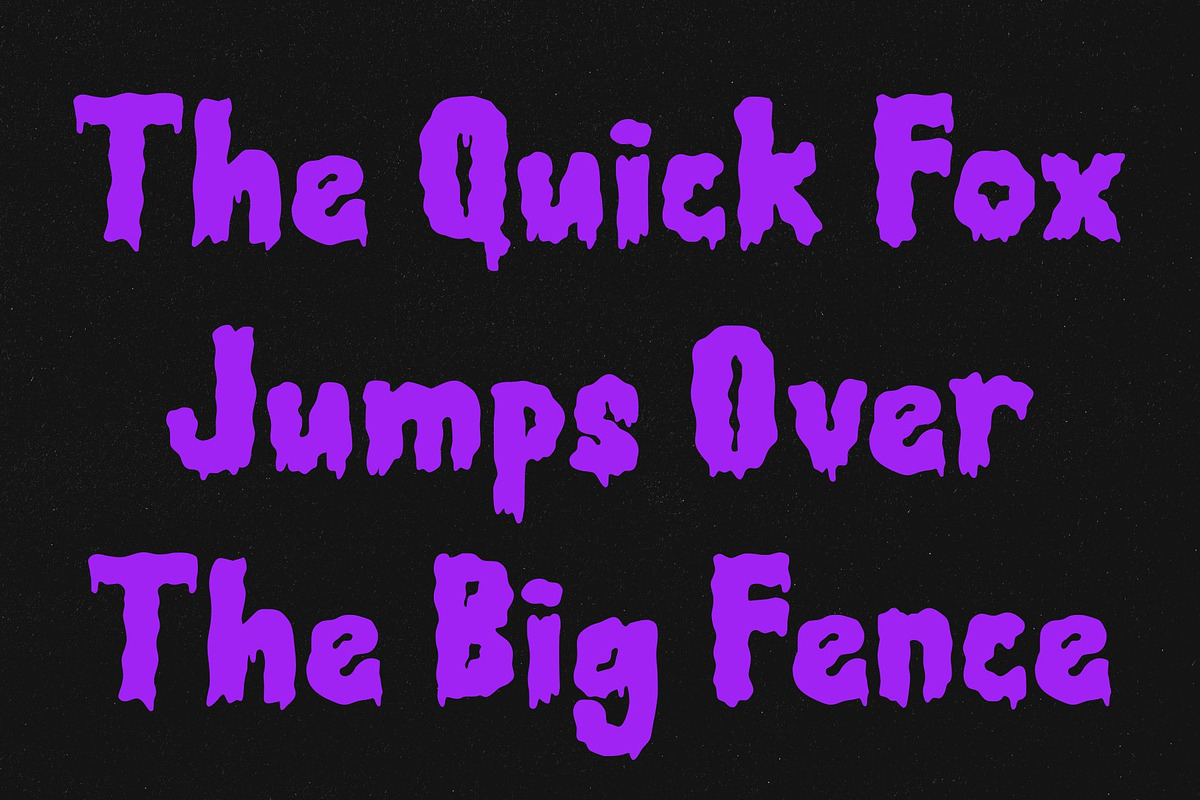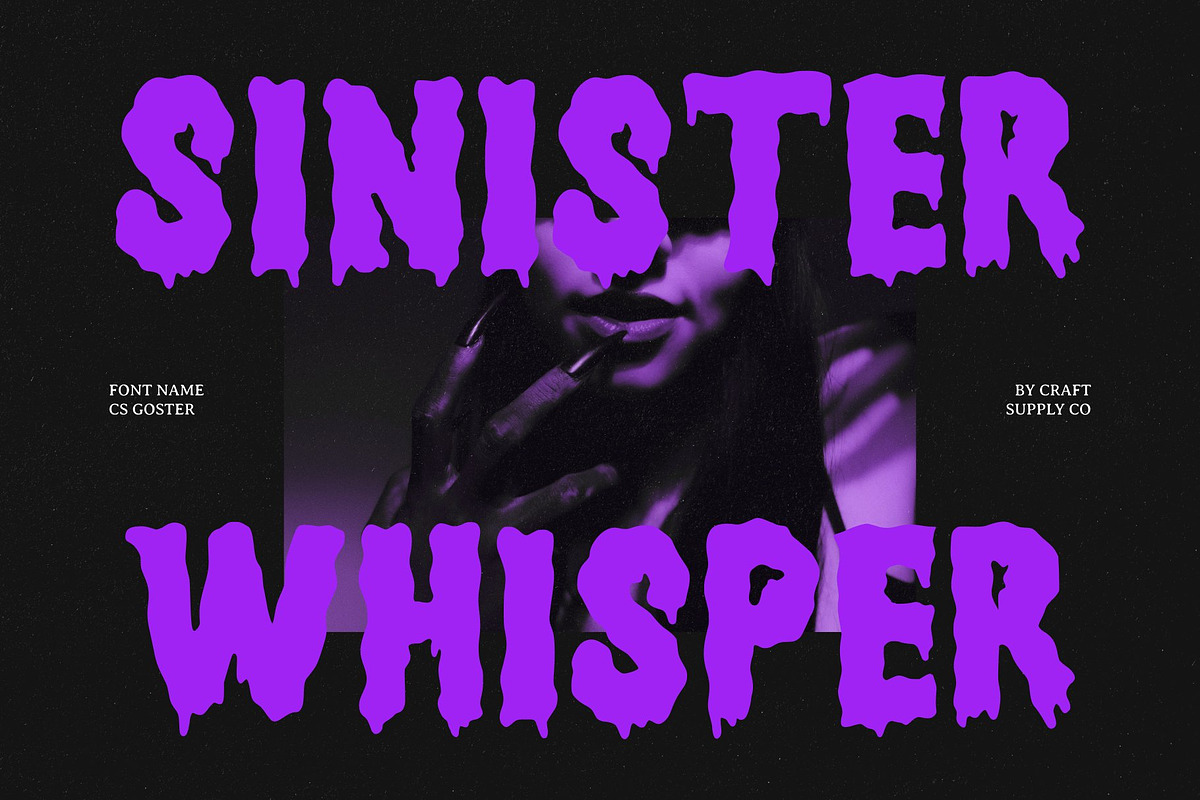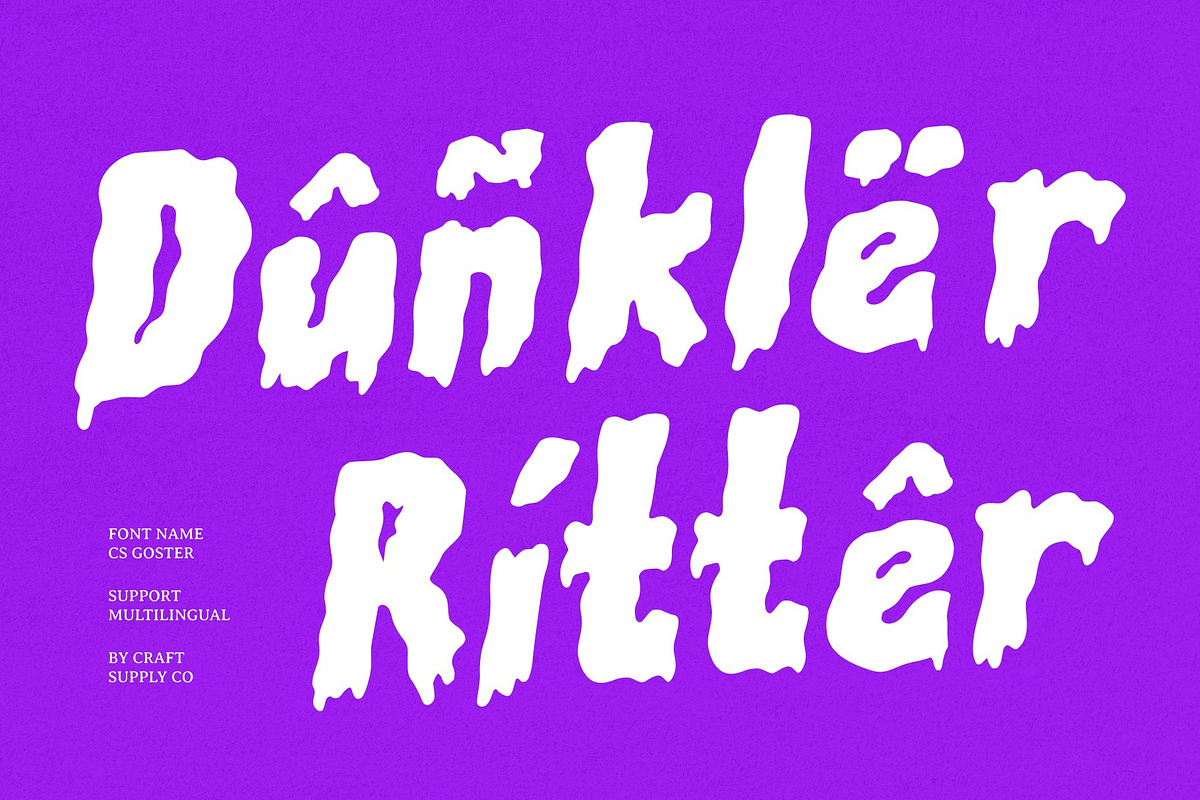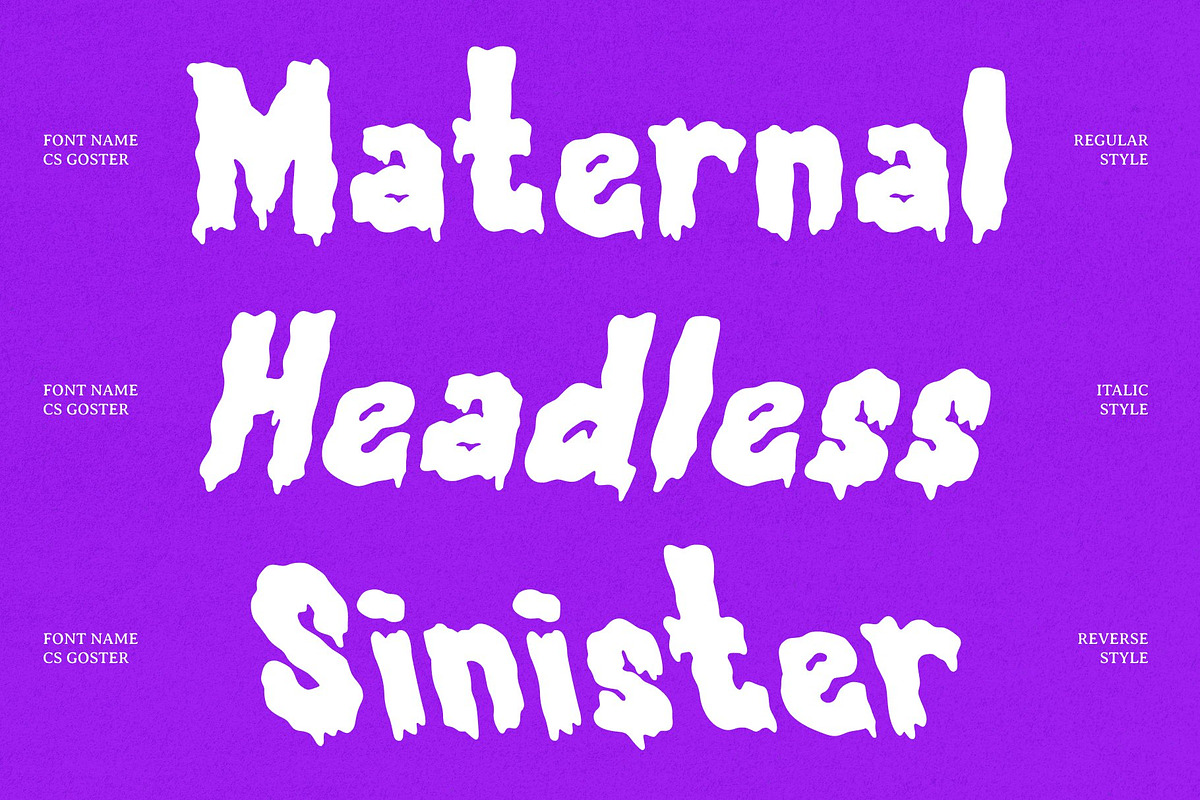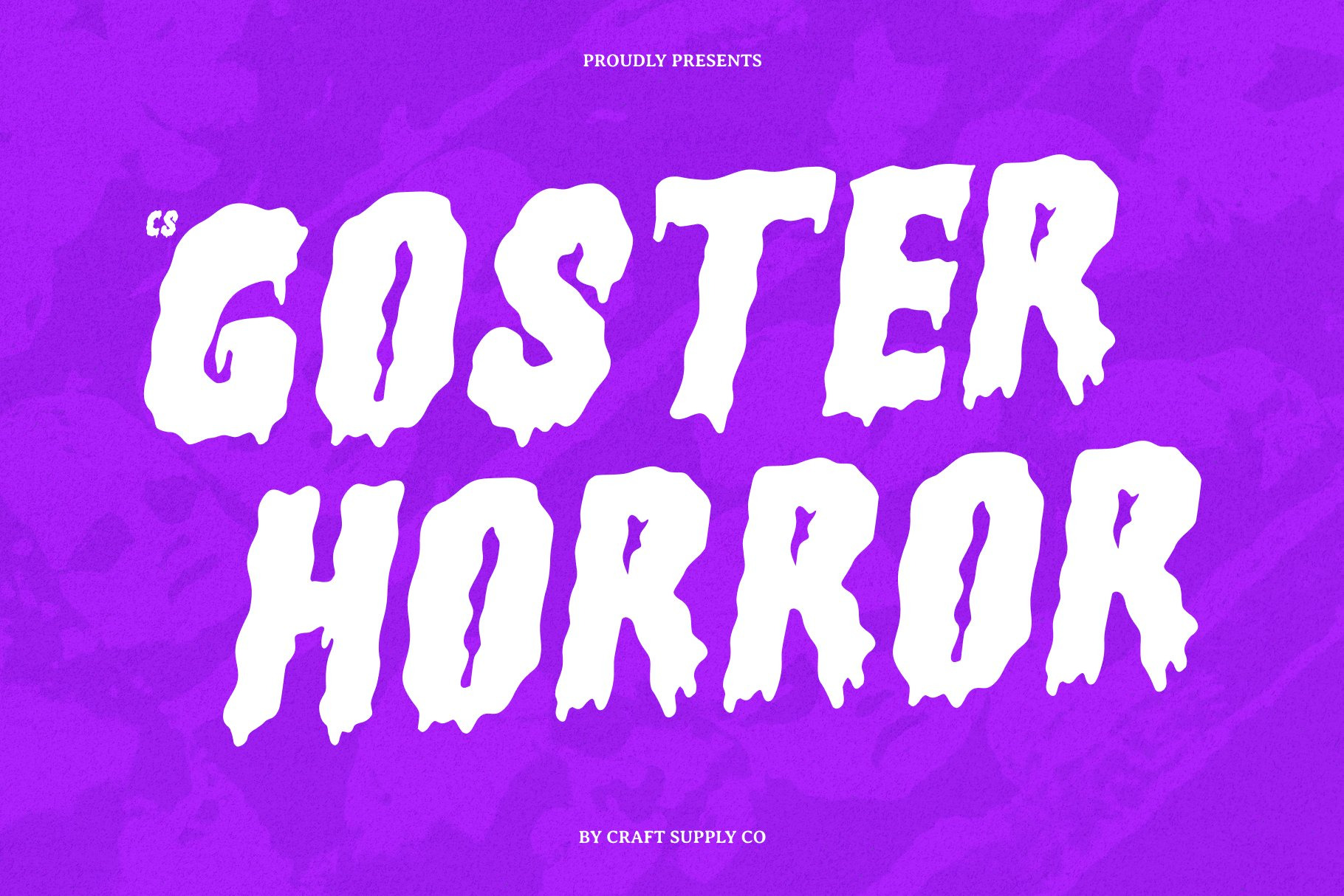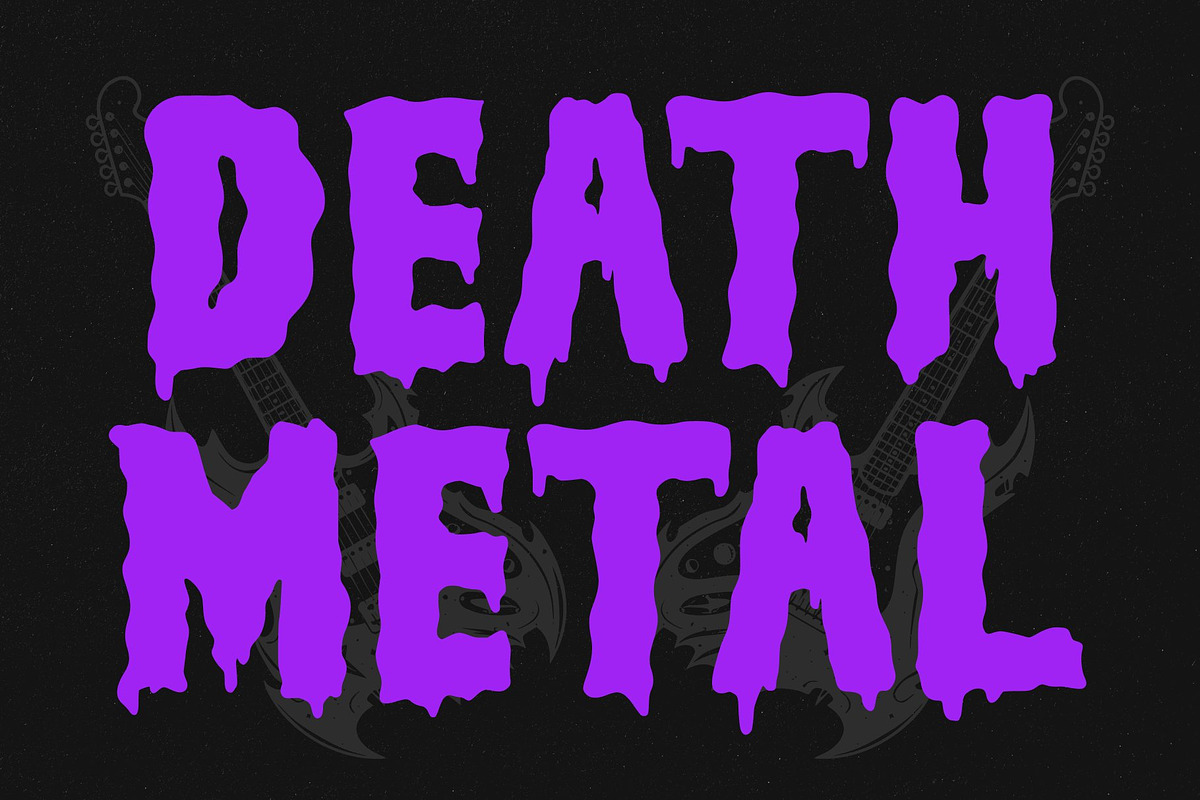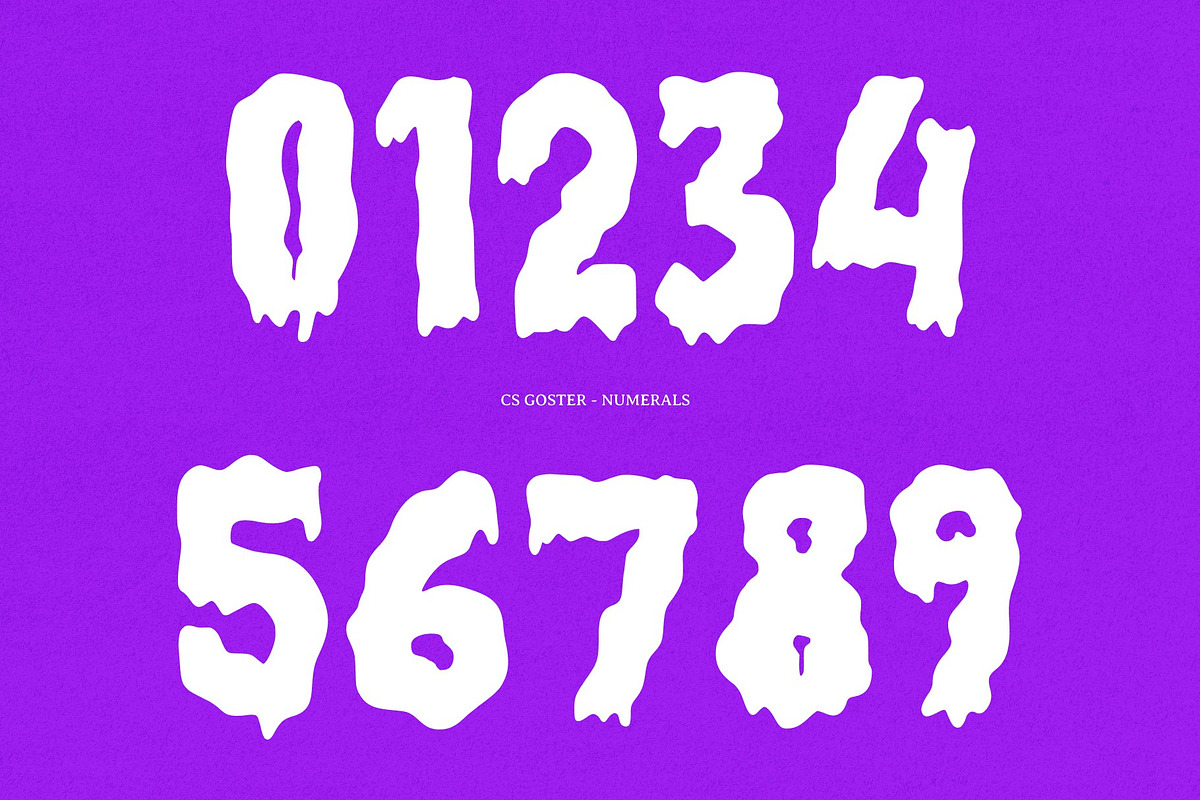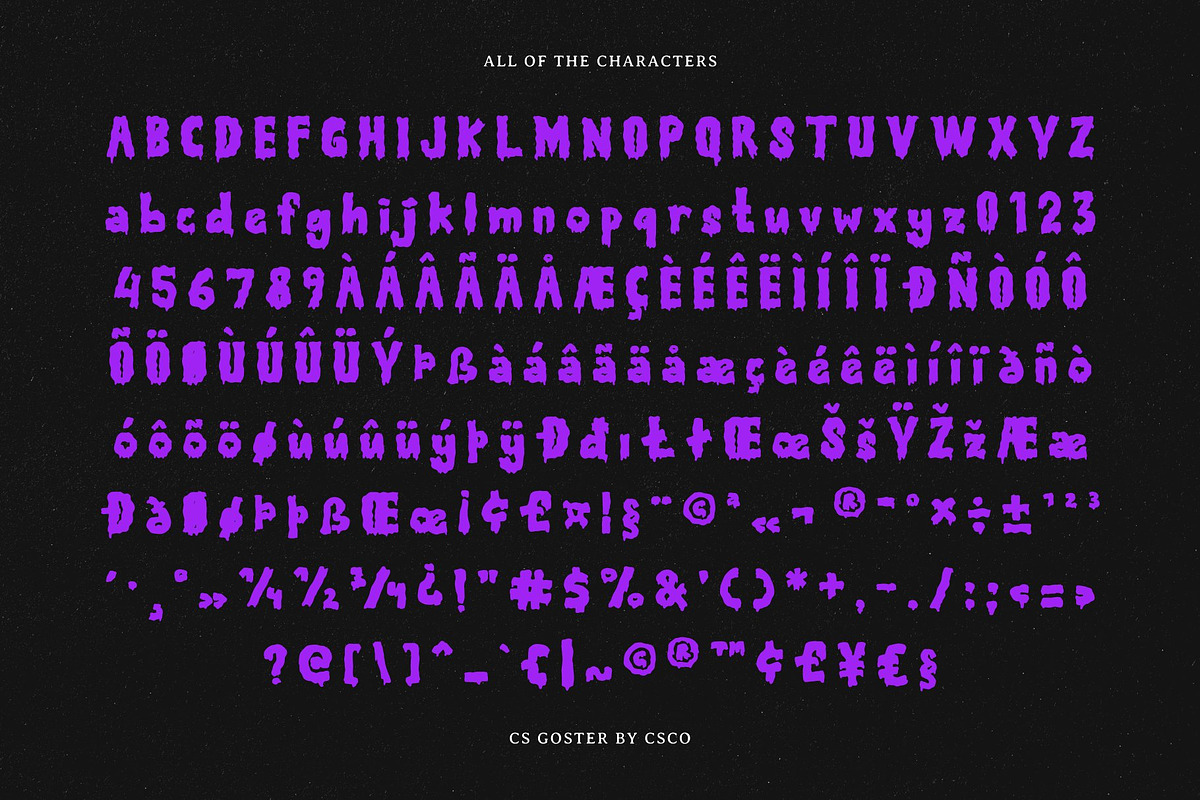
CS Goster – Vintage Horror Font
This is a vintage horror display font that delivers spine-chilling personality to every headline. Inspired by classic monster movie posters and spooky seasonal carnival signage, this hand-drawn typeface embraces a delightfully eerie aesthetic. Each character bursts with bold, chunky strokes and delightfully imperfect, sketchy edges that instantly transport your audience back to the golden era of creature features and retro thrills.
This distinctive print-on-press texture captures the authentic look of ink hitting vintage newsprint and poster board. It is scary enough to set a moody, suspenseful tone for your autumn projects, yet remains playful and approachable enough to keep viewers engaged and thoroughly entertained.
When your design demands maximum character and pristine readability takes a back seat to raw emotional impact, this font steps up to command the room. It is expertly crafted for high-impact headlines, cinematic titles, and creative decorative lettering where visual charm is everything.
Bring your seasonal campaigns, party invitations, and merchandise concepts to life with a typeface built for dramatic storytelling. Whether you are branding a haunted attraction, designing event posters, or crafting spooky apparel, this font provides the ultimate vintage punch.
CS Goster Regular
CS Goster Italic
CS Goster Reverse Italic